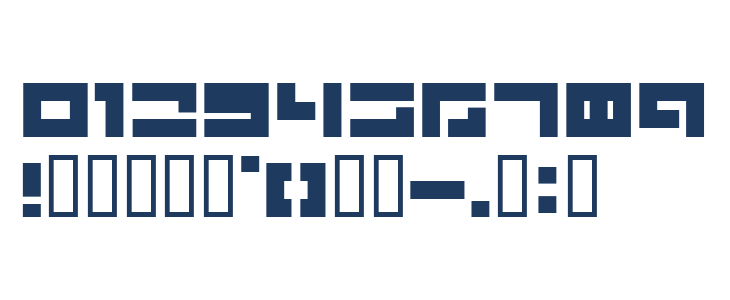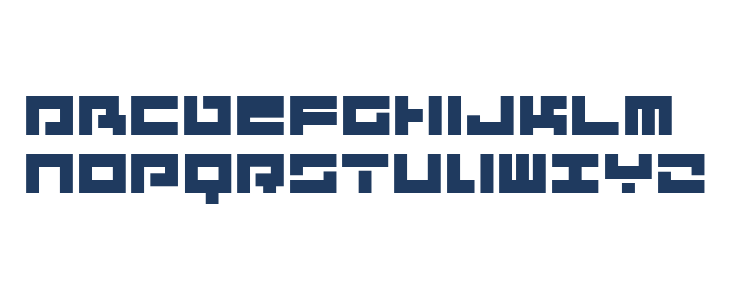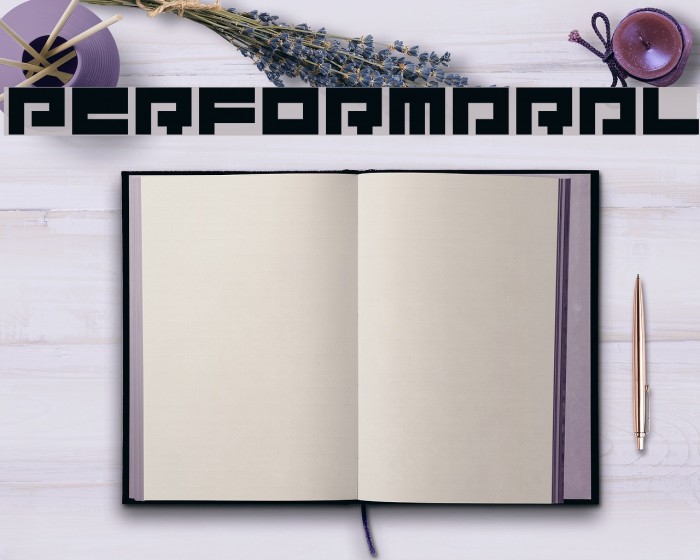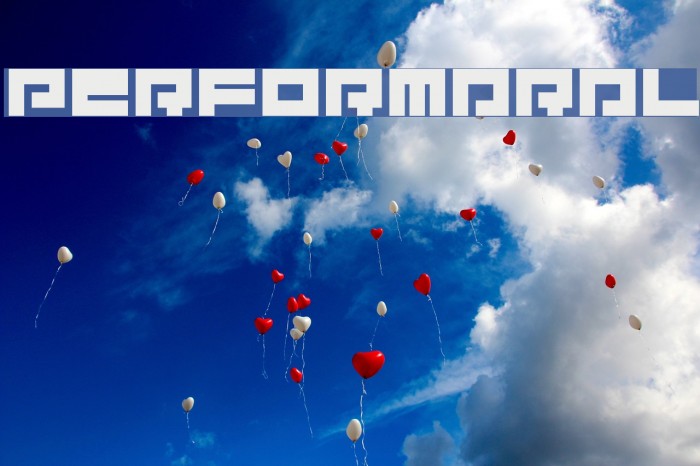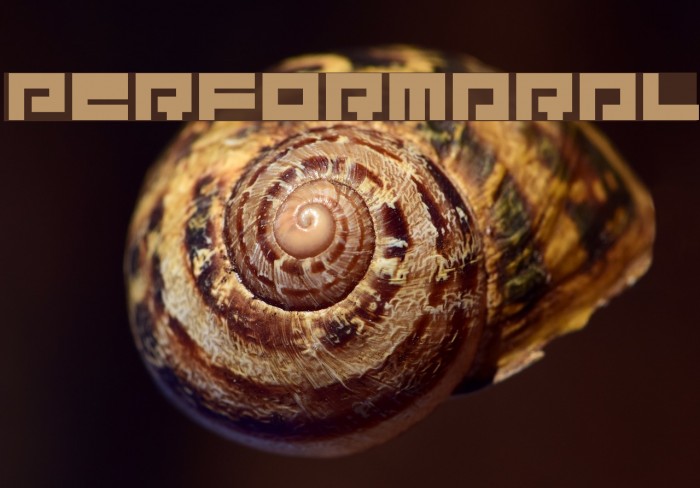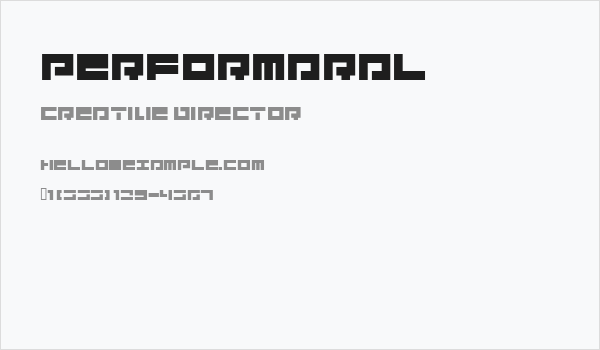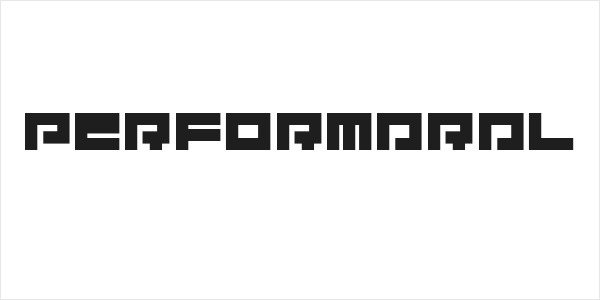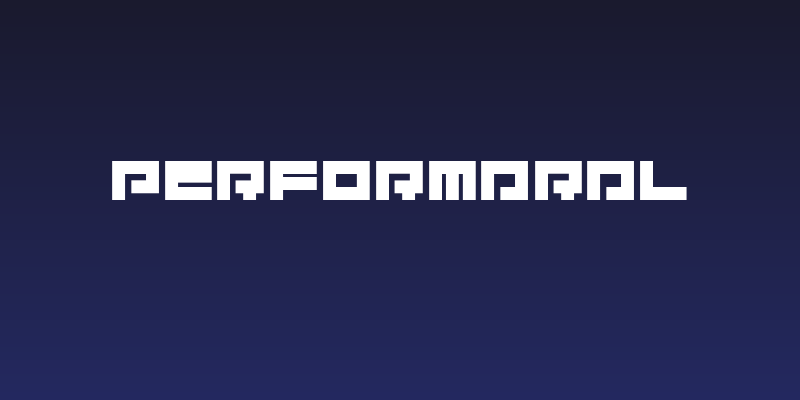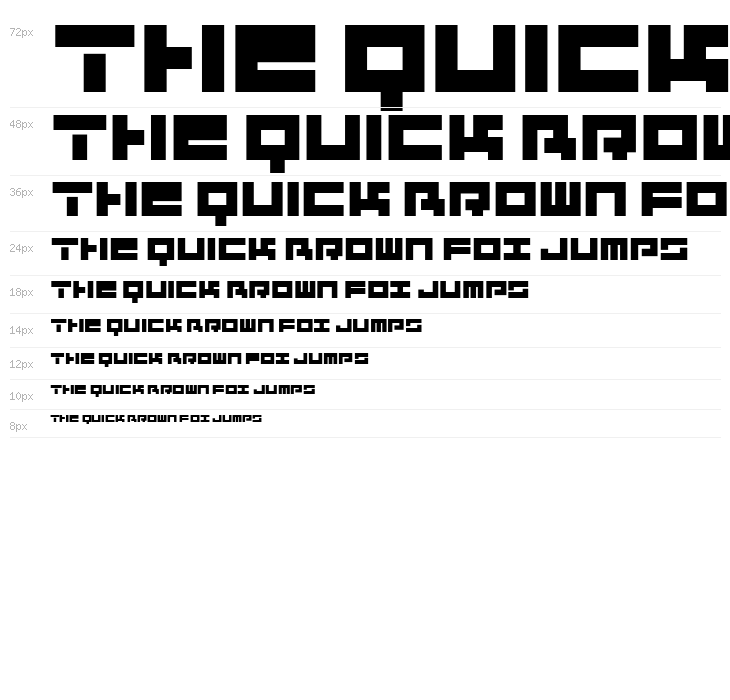
PerformarAL Font
PerformarAL Description
This font features a bold, geometric design with a distinctly futuristic and digital aesthetic. The characters are constructed with sharp angles and straight lines, giving them a blocky, pixelated appearance reminiscent of early computer graphics or arcade games. The uniformity in height and width across characters contributes to a cohesive and structured look. The font's style is highly decorative, making it ideal for projects that require a modern, tech-inspired feel. The spacing between characters is tight, enhancing the compact and solid nature of the text. This font is best suited for display purposes where a strong visual impact is desired.
Proposed ProjectsIdeal for video game titles, tech-themed posters, and digital media branding.